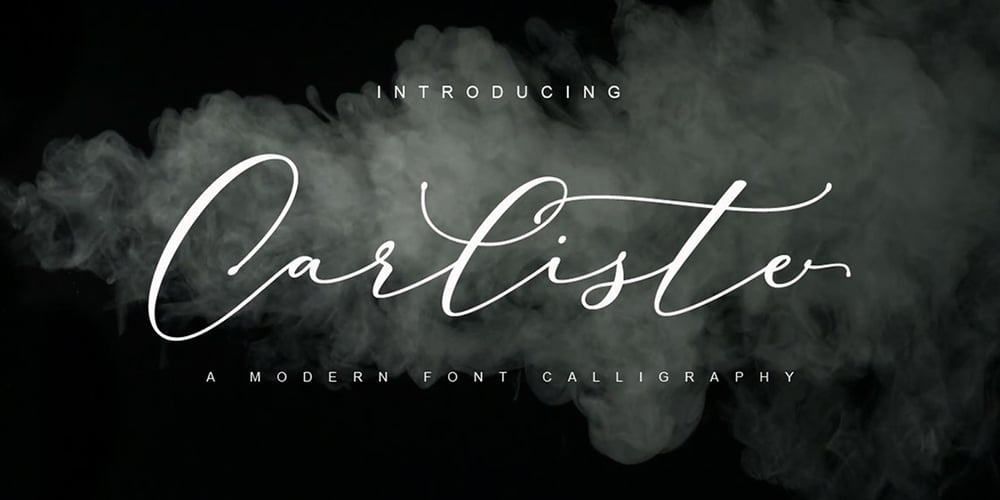
Carliste Script Font Family was designed by Kurniadi Saputra and published by Cooldesignlab. Carliste Script contains 1 styles and family package options. Carliste Scripts is a perfect signature with distinctive style, decorative characters and a dancing baseline. So beautiful on invitations like greeting cards, logos, book covers, packaging designs, branding materials, business cards, quotes, posters, and more.Carliste Script includes alternative glyphs and wonderful stir in fonts including style sets, ligatures etc. The Open Type feature can be accessed using Open Type savvy programs such as Adobe Illustrator CS, Adobe Indesign & CorelDraw X6-X7 and Microsoft Word.This font has given PUA unicode (special code font) so that all alternative characters can be easily accessed in full by craftsmen or designers. If you do not have a program that supports OpenType features such as Adobe Illustrator and CorelDraw X Version, you can access all alternative glyphs using Font Book (Mac) or Character Map (Windows).If you have questions, don’t hesitate to contact me via Gmail: Cooldesignlab@gmail.com